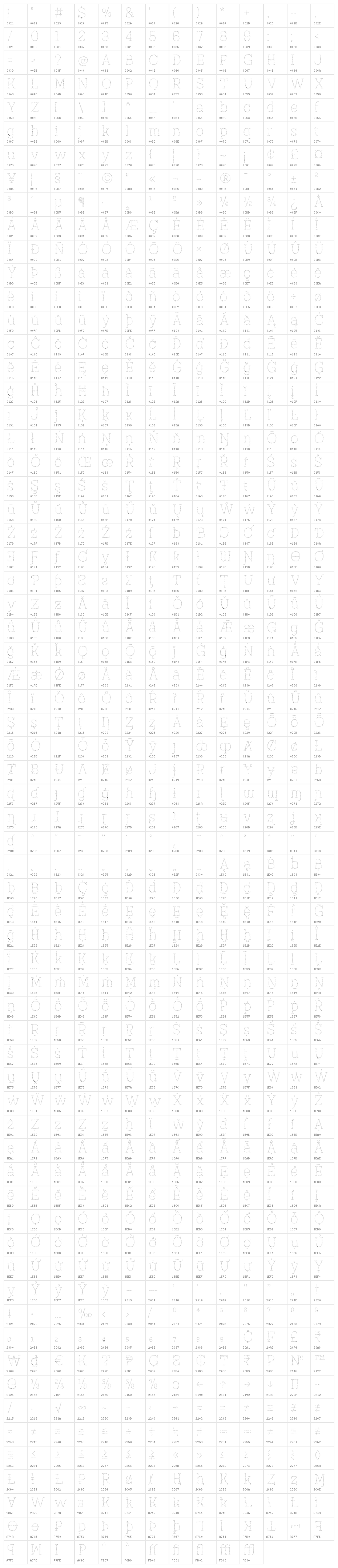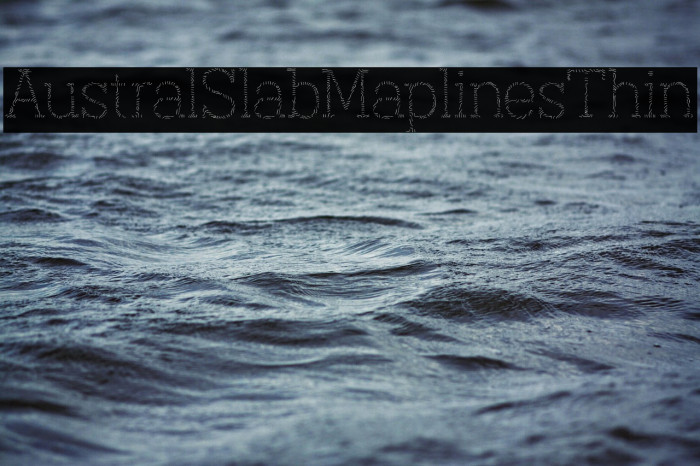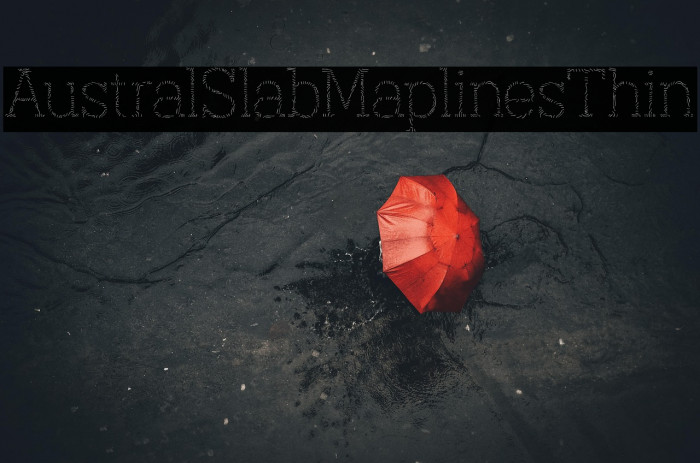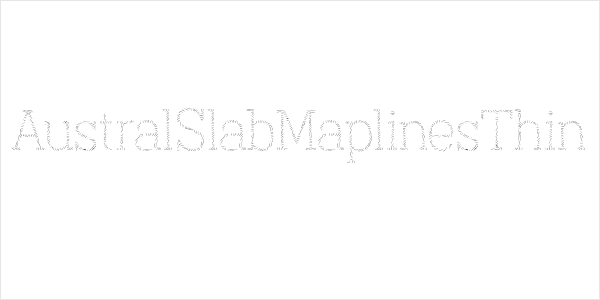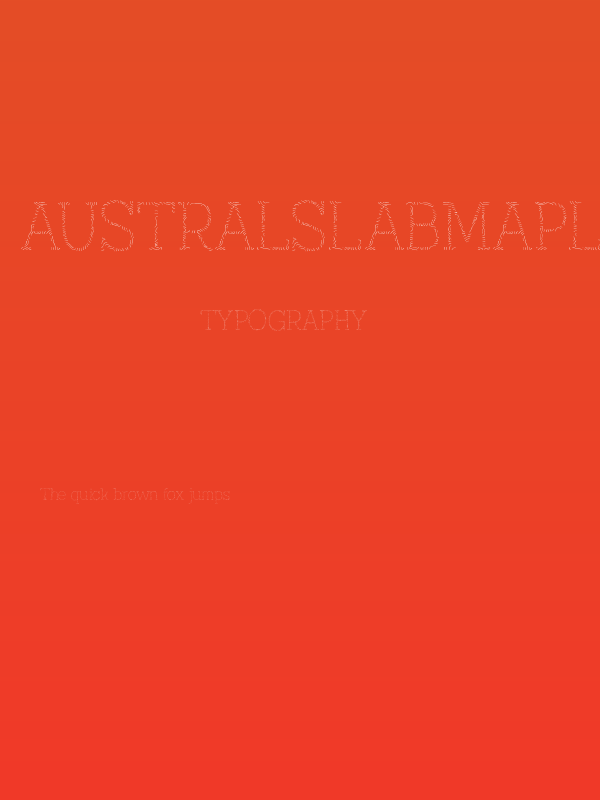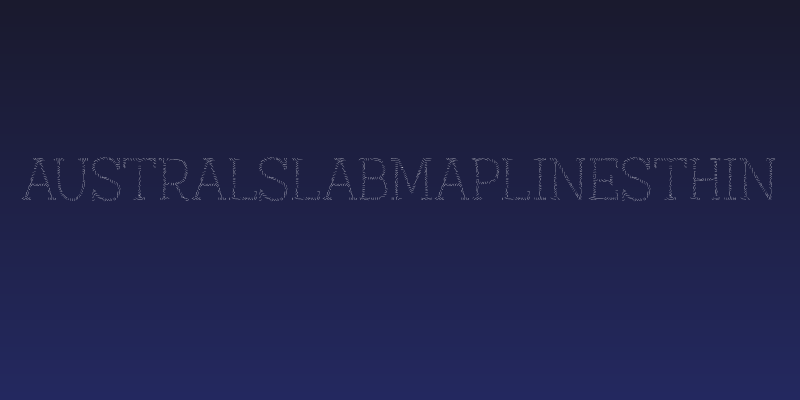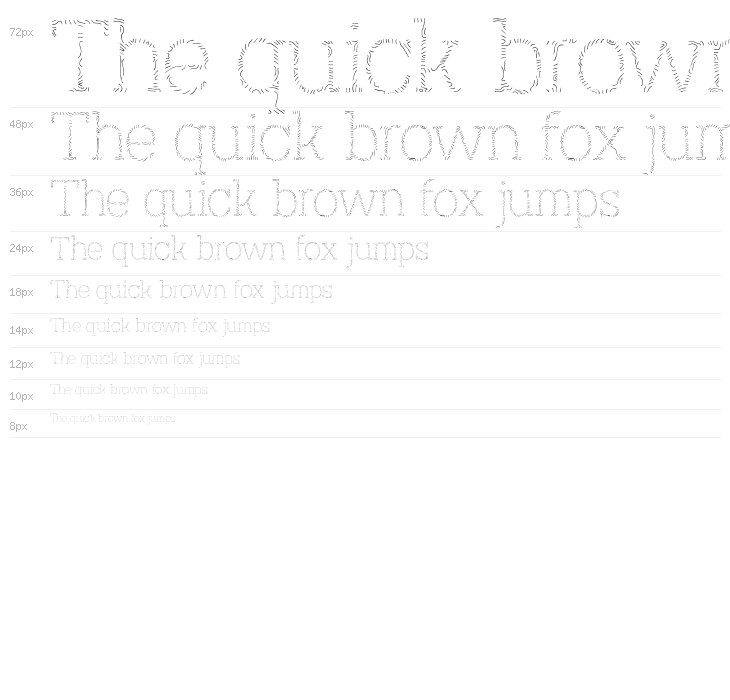
AustralSlabMaplinesThin Font
AustralSlabMaplinesThin Description
This font features a unique and artistic design, characterized by its thin, sketch-like strokes that give it a hand-drawn appearance. The letters are crafted with a series of short, parallel lines that create a textured effect, reminiscent of a map or topographical lines. This distinctive style adds a sense of movement and dynamism to the text, making it stand out. The uppercase and lowercase letters maintain a consistent style, with the uppercase being slightly more pronounced. Numbers and special characters follow the same design principles, ensuring a cohesive look across all elements. The font's playful yet sophisticated aesthetic makes it suitable for creative projects that require a touch of elegance and originality.
| Overall Style | Artistic, Hand-drawn |
| Proposed Projects | Ideal for artistic projects, branding, packaging, invitations, and editorial design. |